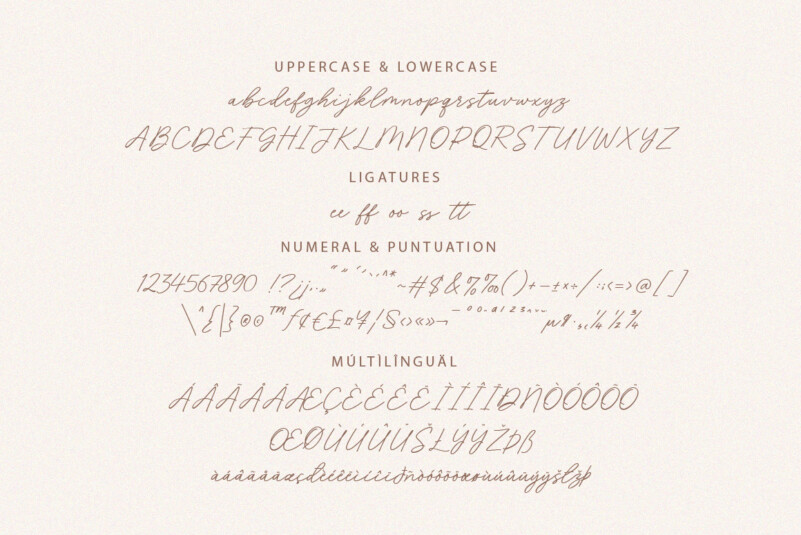
Homestone Font
Homstone Font is an exquisite handwritten font, masterfully designed to become a true favorite. It maintains its classy calligraphic influences while feeling contemporary and fresh.